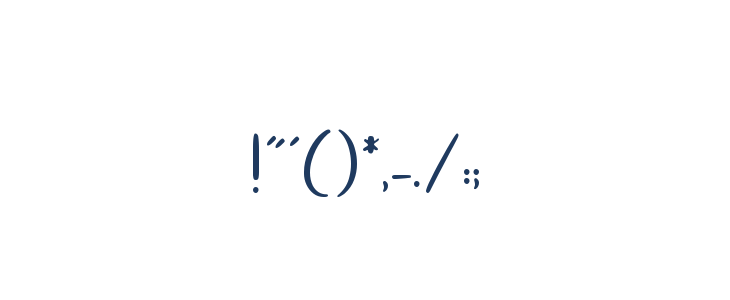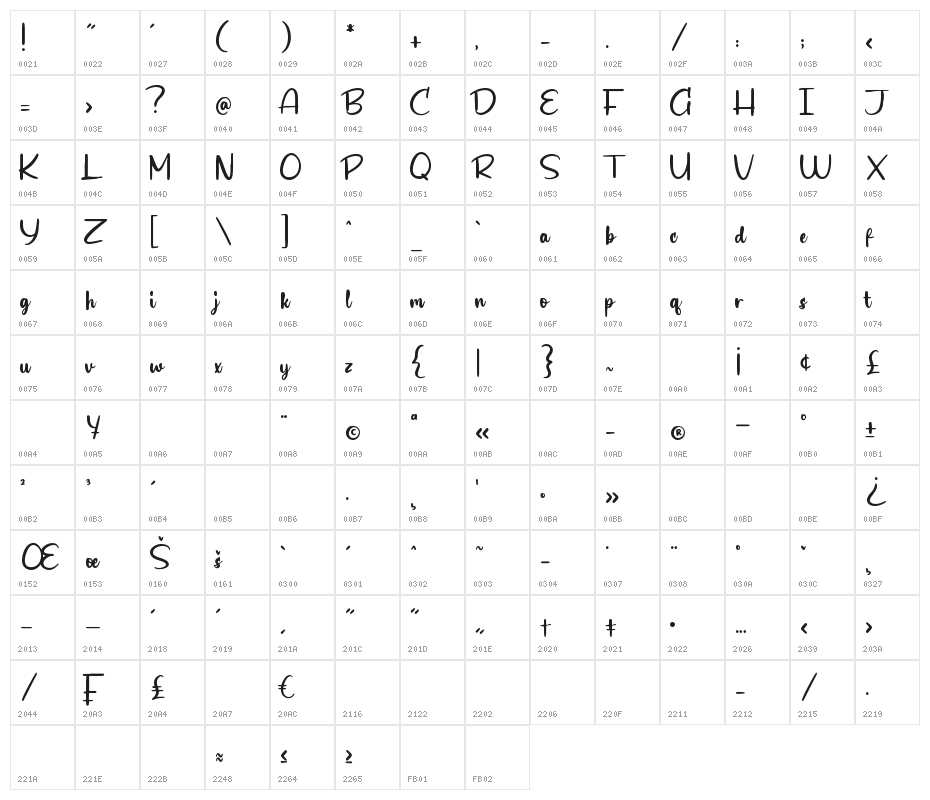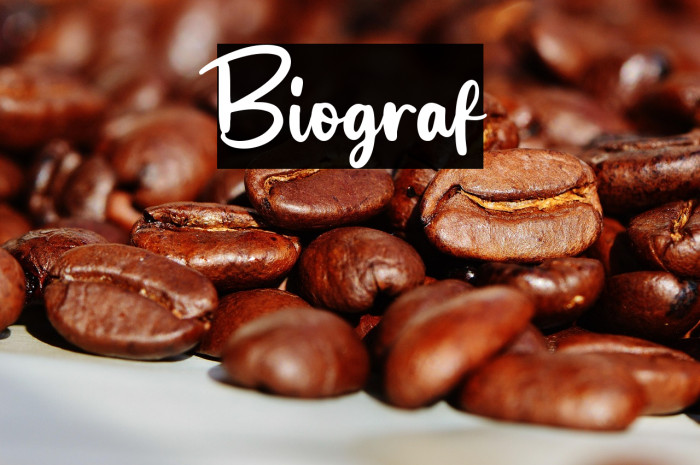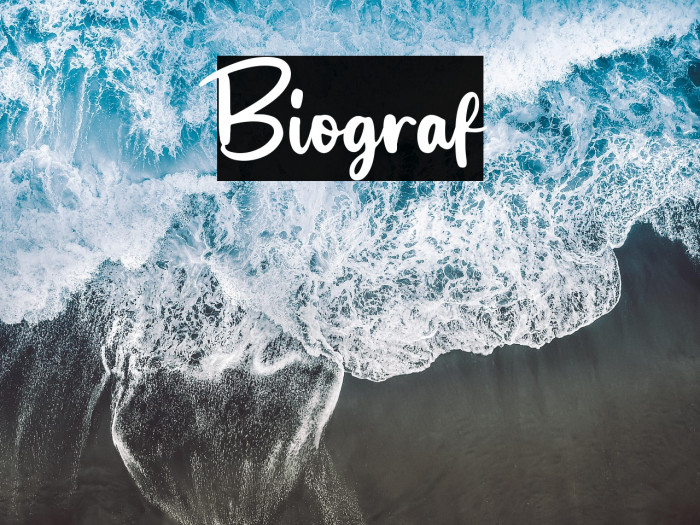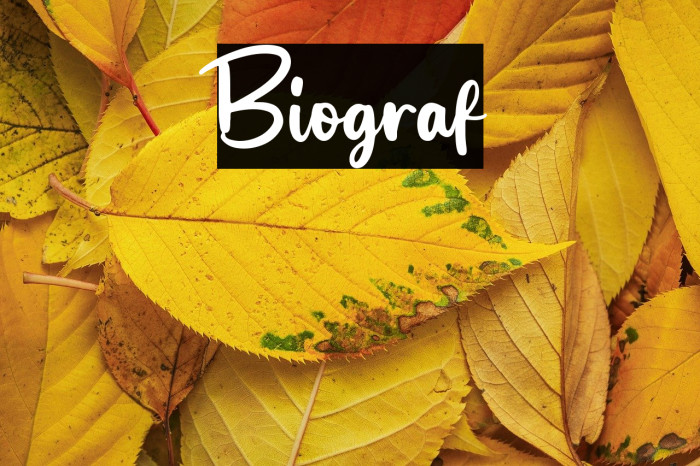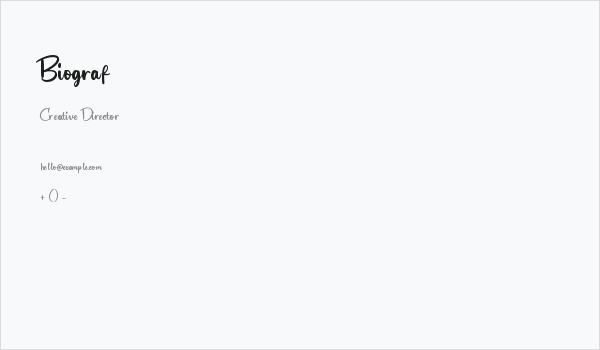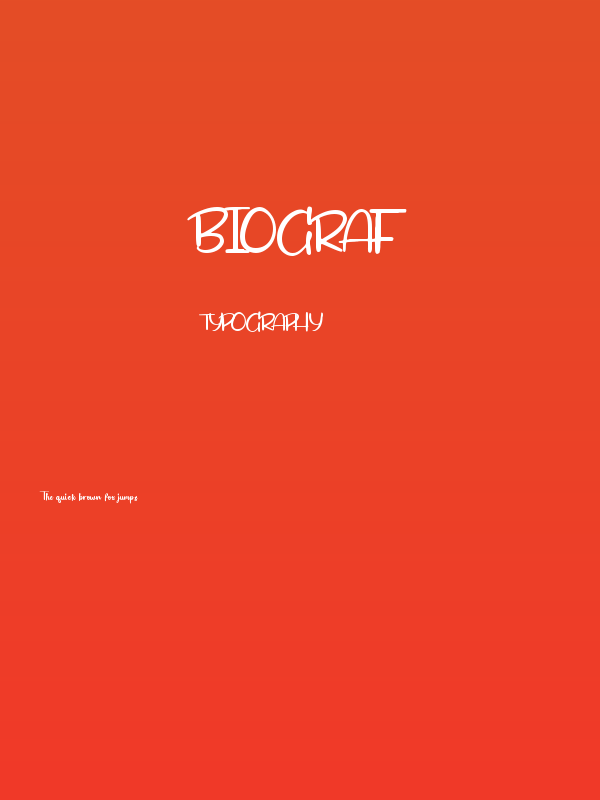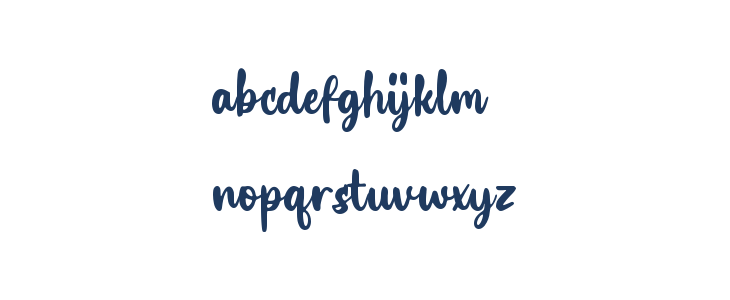
Biograf Font
Biograf Description
This font features a playful and dynamic script style, characterized by its fluid and connected letterforms. The uppercase letters exhibit a bold and confident appearance, with smooth curves and a slight slant that adds a sense of motion. The lowercase letters maintain a cohesive flow, enhancing readability while retaining a casual elegance. The numerals and special characters are consistent with the overall style, offering a harmonious blend of formality and whimsy. This font's unique personality makes it suitable for a variety of creative applications, from branding to invitations.
| Use Case | Logos, Invitations, Creative projects |
| Proposed Projects | Ideal for branding, invitations, greeting cards, and creative projects requiring a personal touch. |